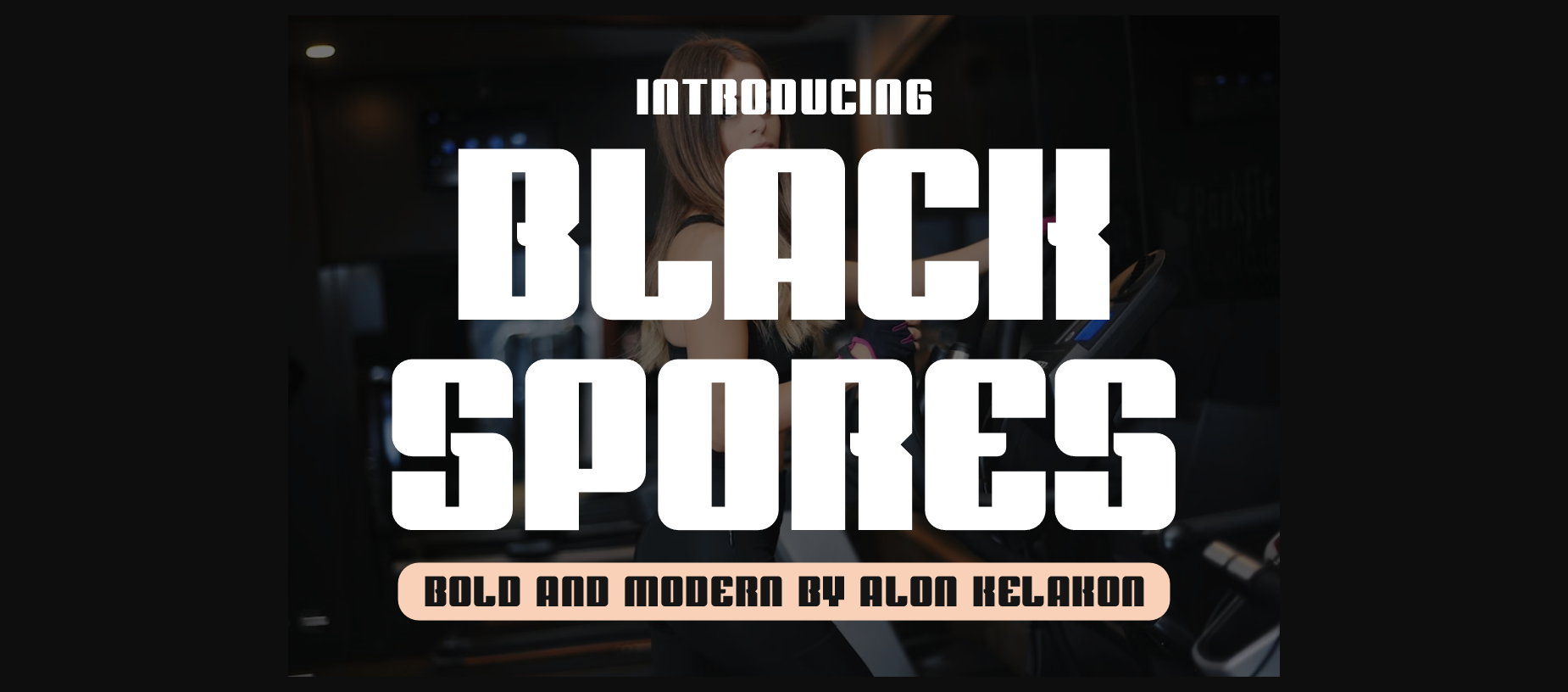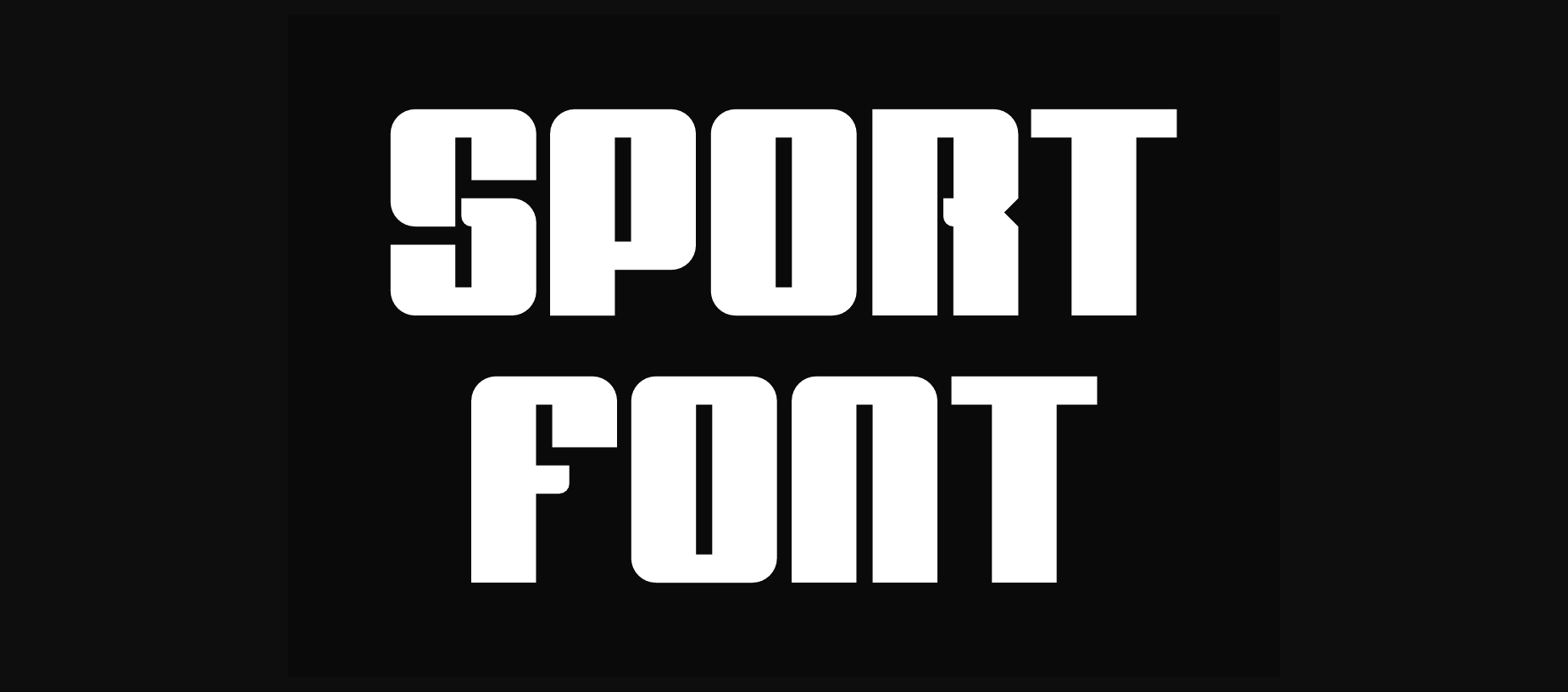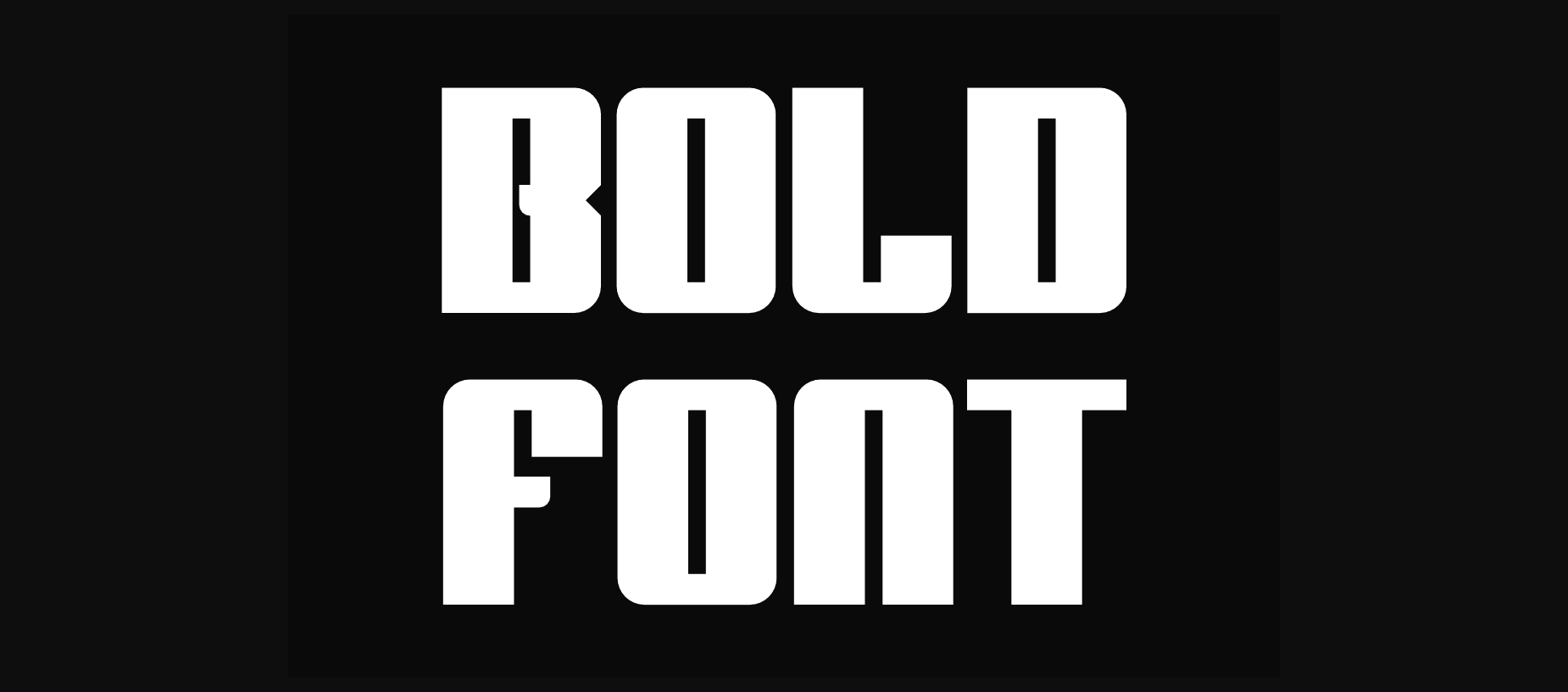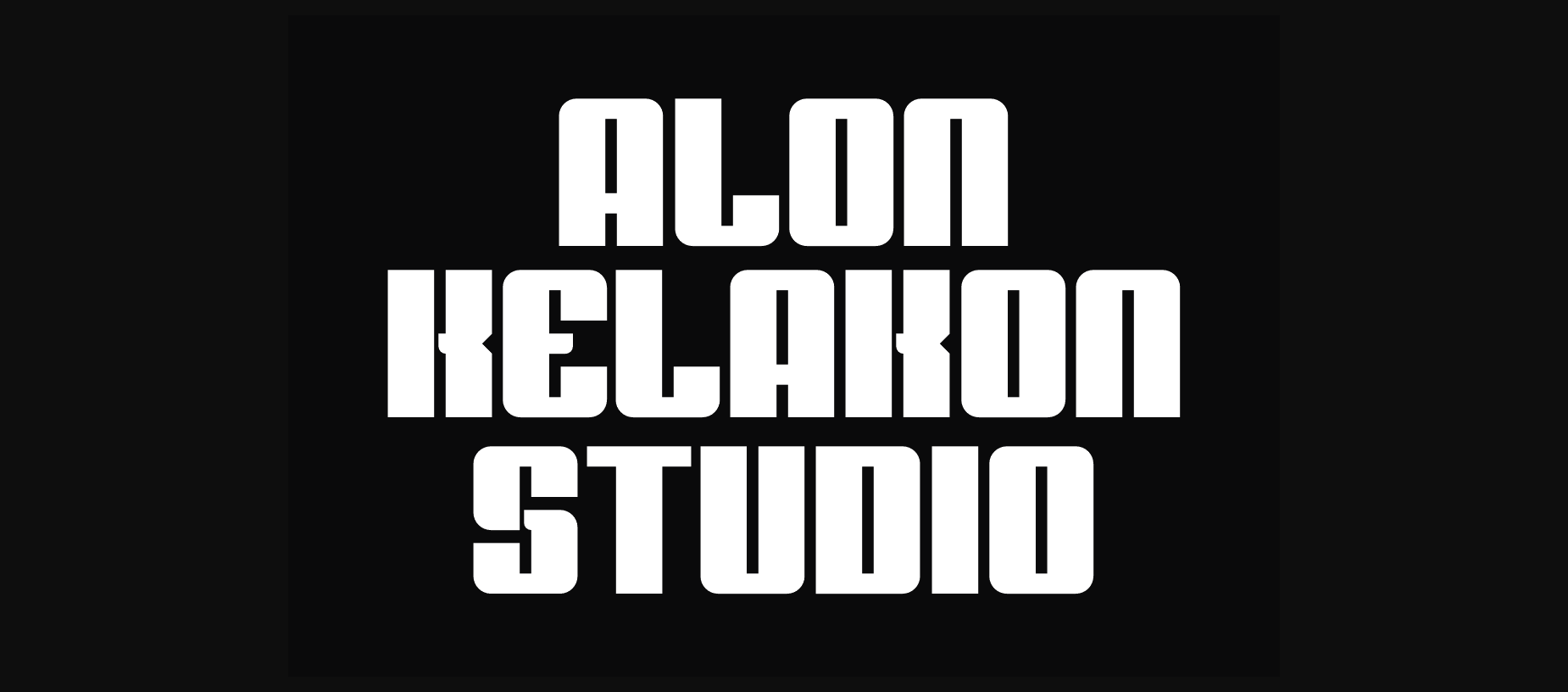
Black Spores Font
About Black Spores Font
Black Spores is a bold and assertive sans serif font. No matter the topic, this font will be an incredible asset to your fonts’ library, as it has the potential to elevate any
creation.